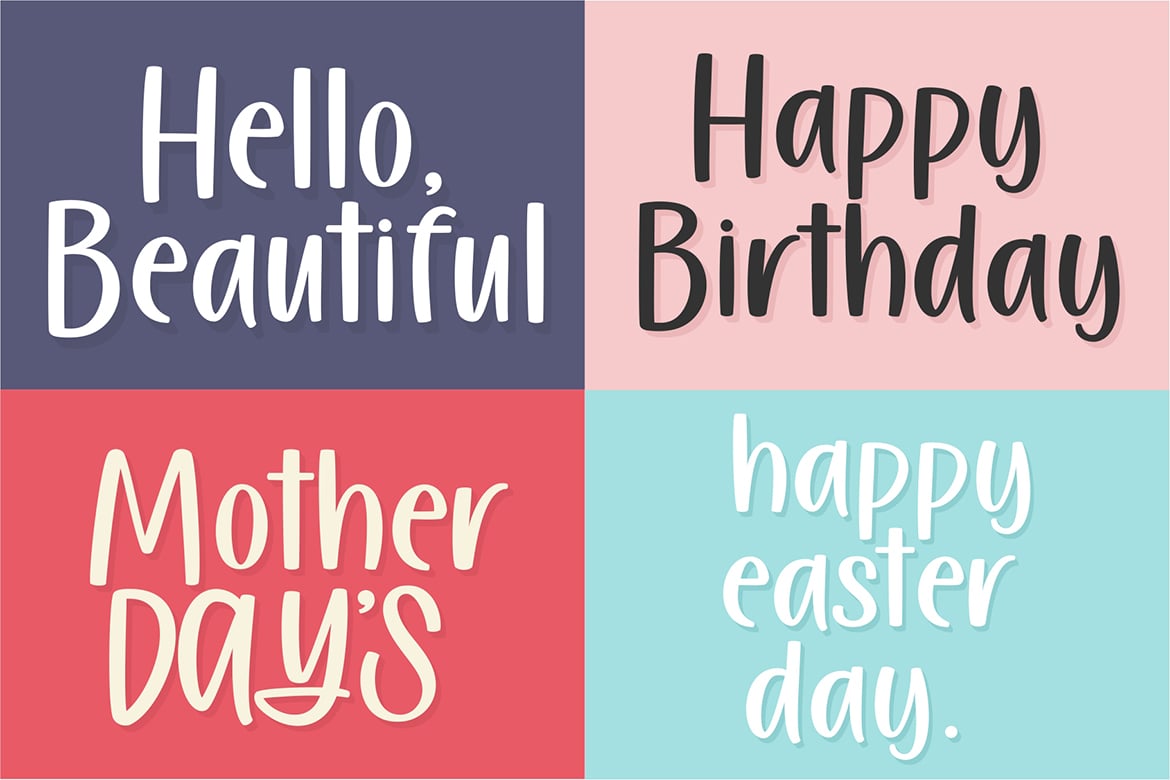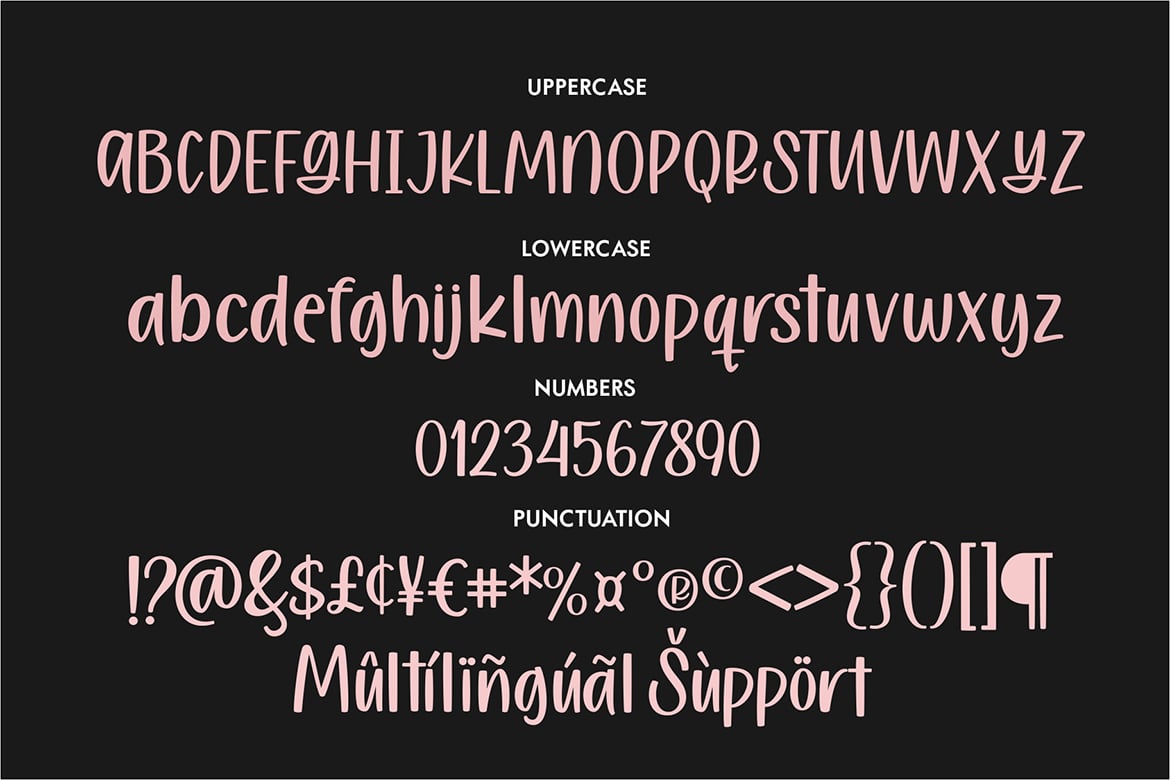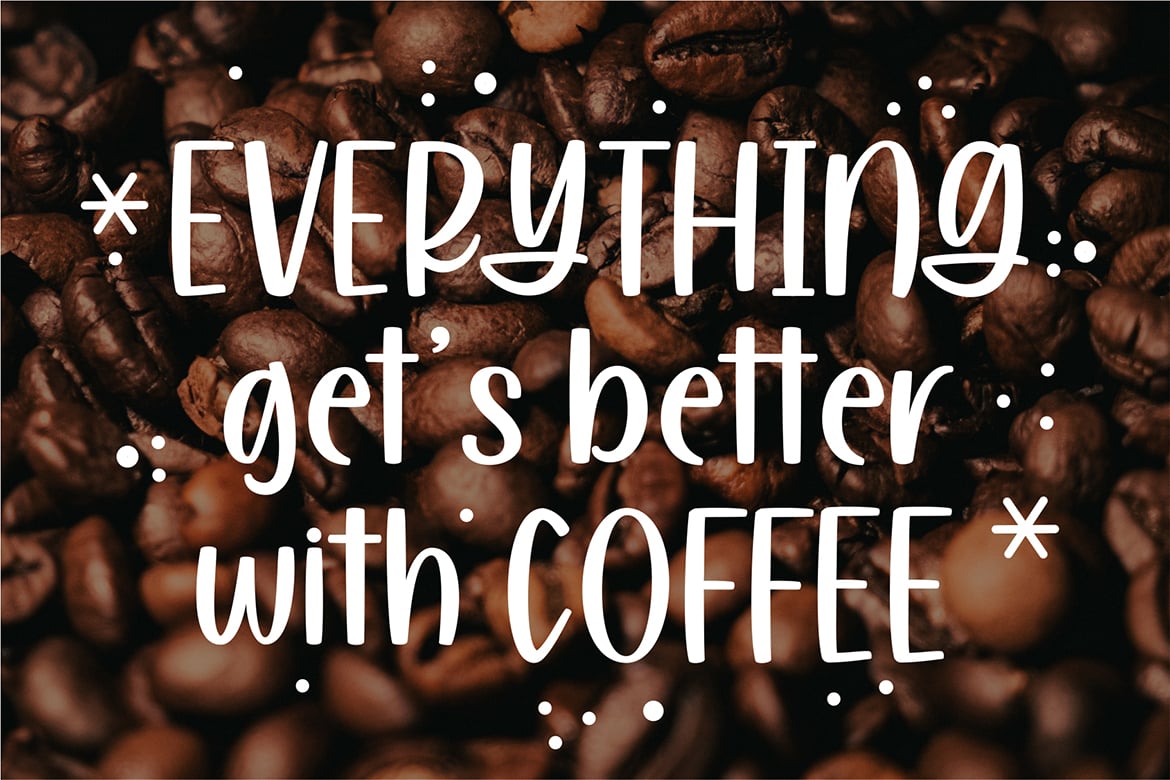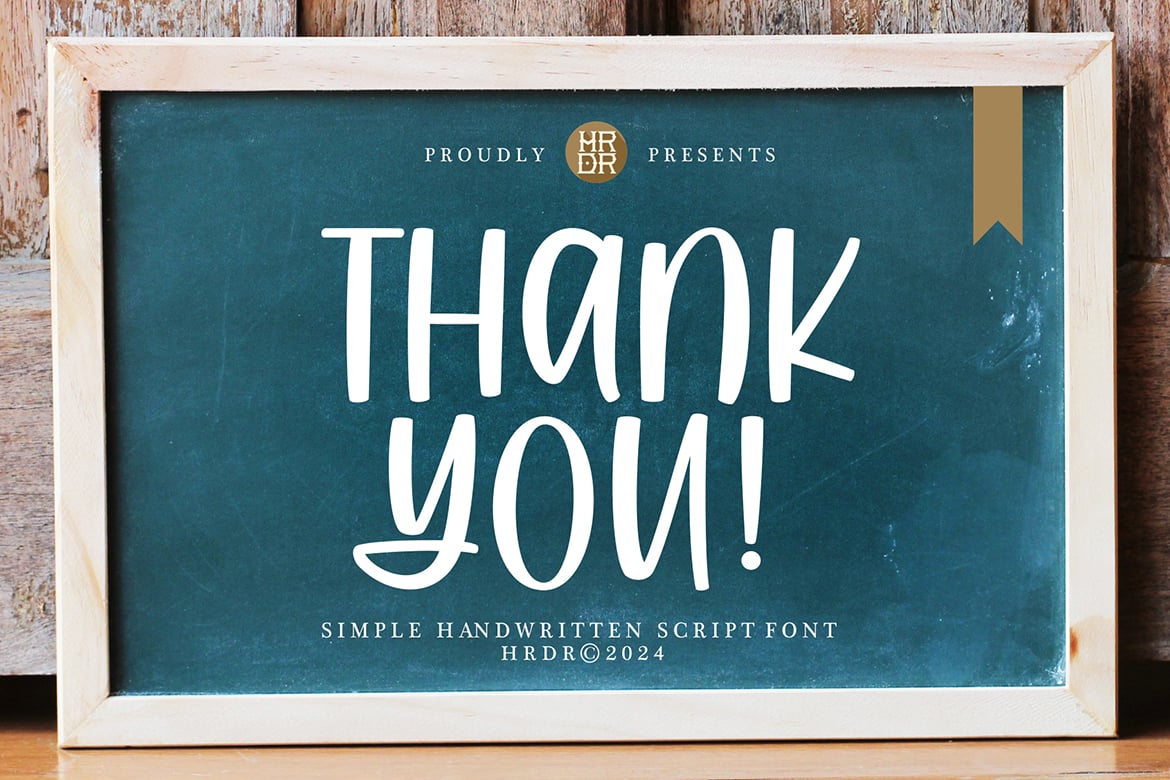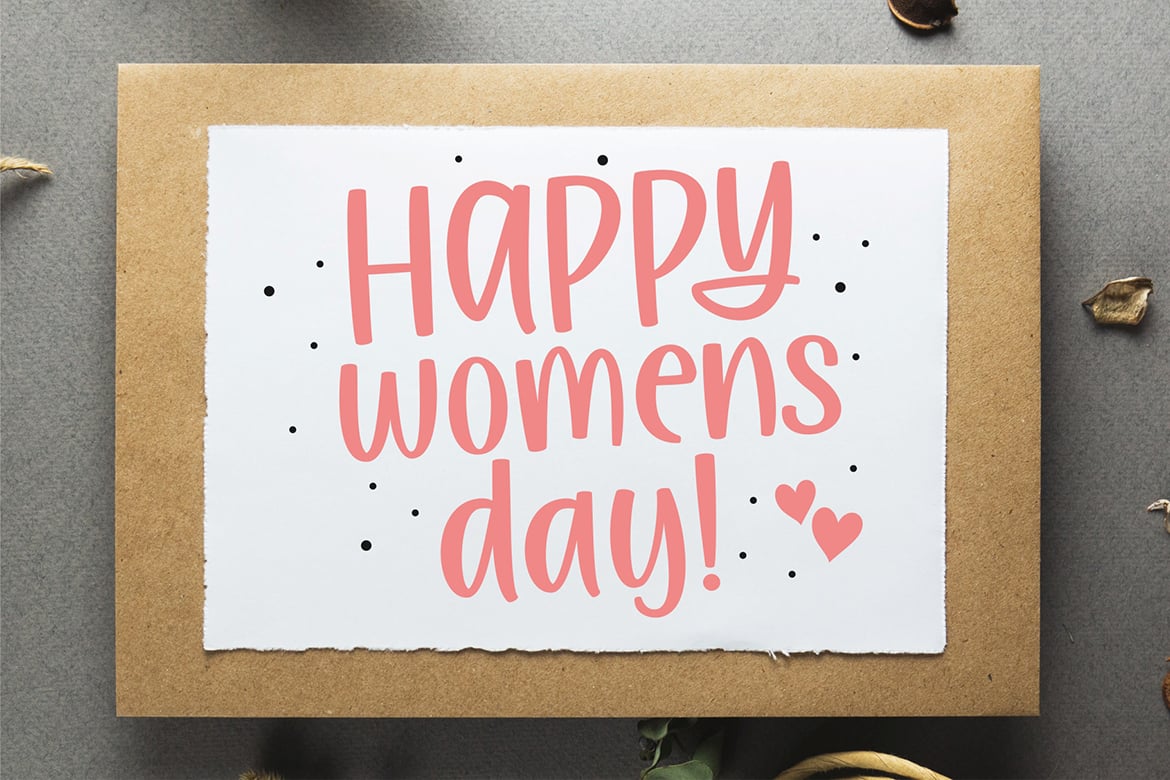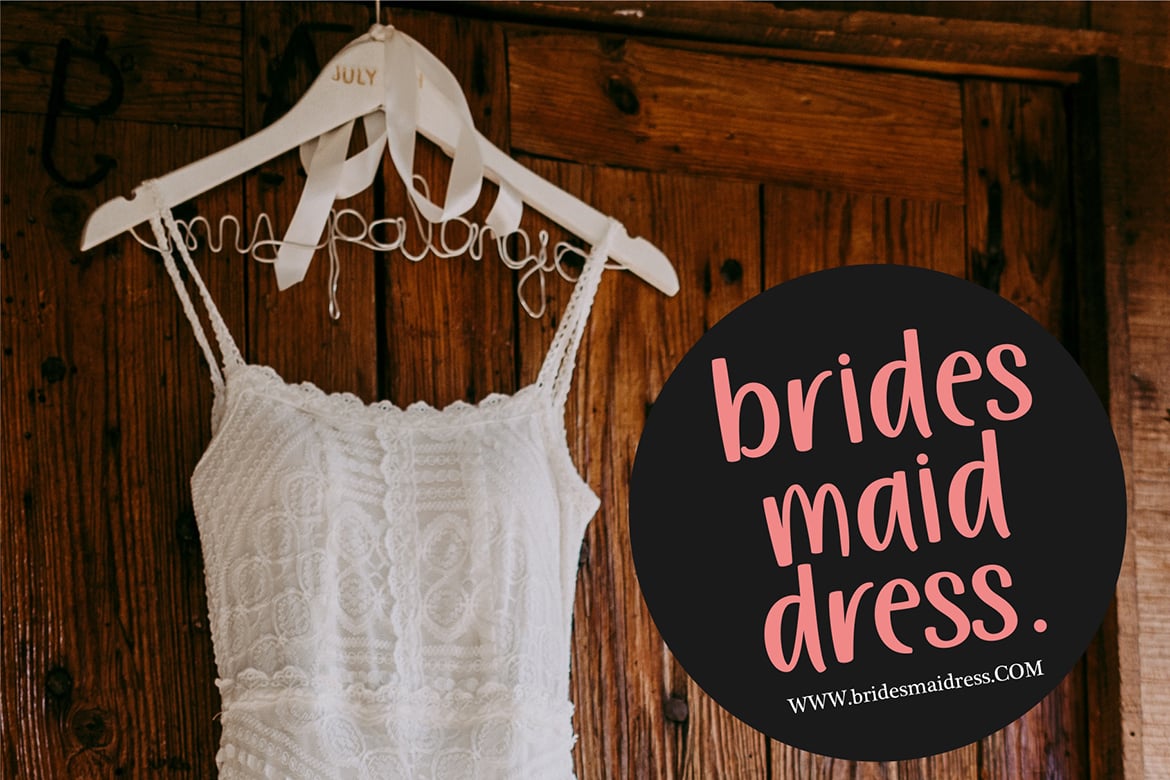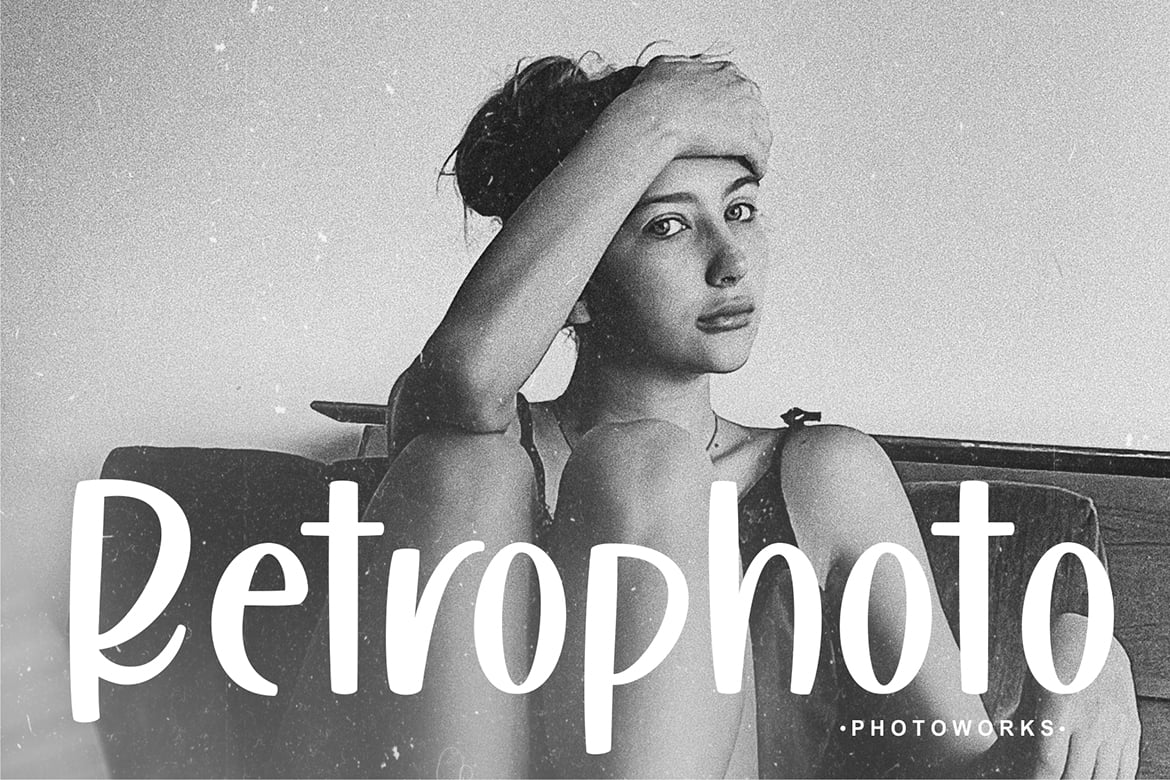
Magicaly Marker – Simple Handwritten Font
Magicaly Marker is a  Simple handwritten font perfect for of handwritten chalkboard signs in restaurants, bars, shops or on
the market and  Posters, product designs, label, Logo, Quotes, Posters or anything.
Handmarker comes with a full set of uppercase and lowercase letters, ligatures, multilingual symbols, numerals, and
punctuation.